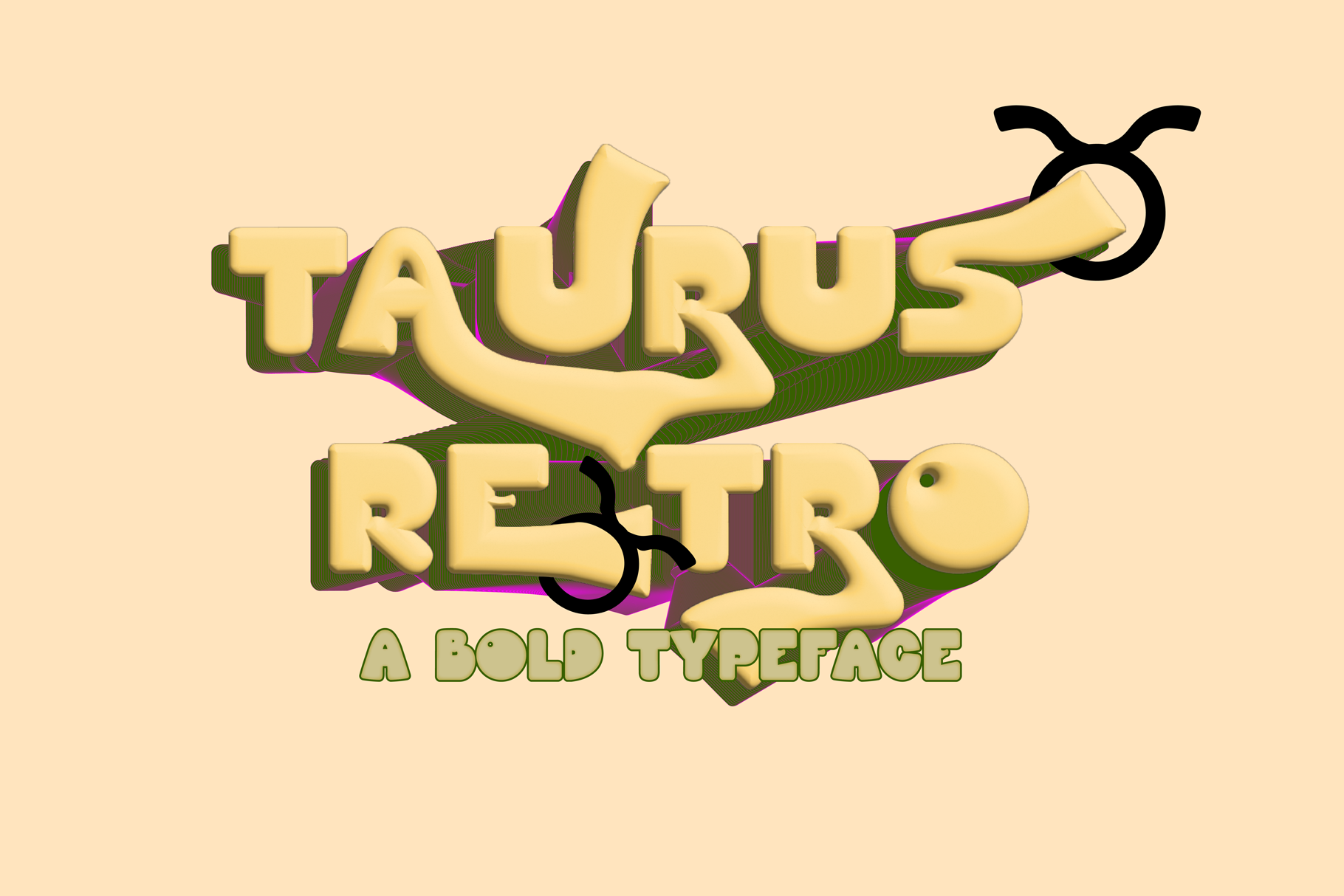
Taurus Retro Typeface
Taurus Retro is an AWESOME swash typeface with its swashes built in as character alternates, instead of being a pesky, separate typeface. This typeface is great for any project that needs both boldness and femininity. It comes with eight fonts, including
- Taurus Retro Regular
- Taurus Retro Outline
- Taurus Retro Italic
- Taurus Retro Semi Bold
- Taurus Retro Bold
- Taurus Retro Super Bold
- Taurus Retro Black
- Taurus Retro Backdrop
Great for any projects needing a retro or throwback feel, restaurant menus, along with book, movie, and album covers. It has a feminine and juvenile feel simultaneously, and is layerable for cool effects.
It has 480+ glyphs, supporting a variety of languages!